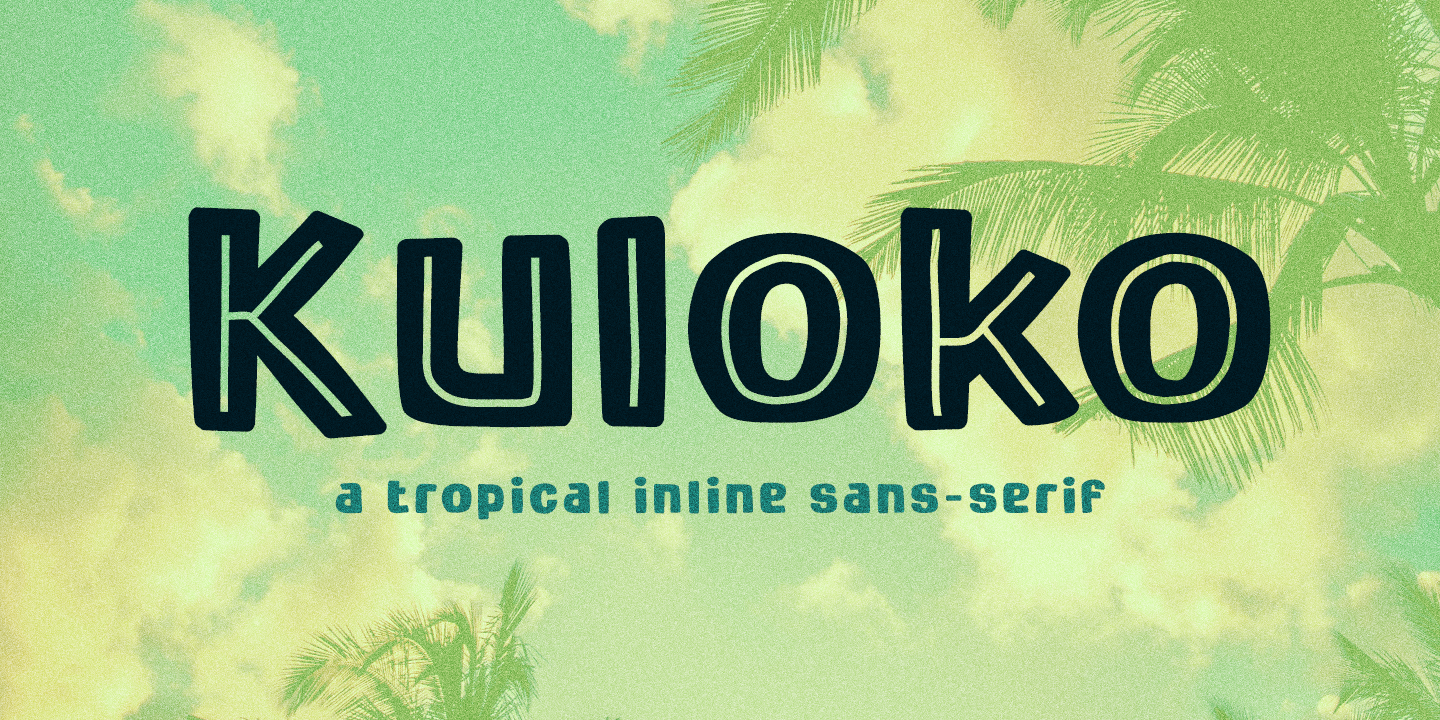
The Kuloko Font is a versatile and striking typeface, perfect for a wide array of design applications. Imagine it gracing the covers of modern magazines, adding a touch of urban sophistication to apparel designs, or providing a bold and memorable statement on product packaging. Its distinct character makes it an excellent choice for branding, poster design, social media graphics, and even eye-catching website headlines. Whether you're aiming for a strong, contemporary feel or a touch of playful edginess, Kuloko Font delivers.
What makes Kuloko Font so exciting is its unique blend of readability and personality. It manages to be both highly legible at various sizes and remarkably expressive, making your message pop. The craftsmanship behind its design ensures smooth curves and sharp lines, contributing to a professional and polished appearance in any context. This font isn't just about conveying text; it's about making a statement and leaving a lasting impression. Its modern aesthetic ensures your designs will stand out from the crowd, capturing attention and conveying a sense of up-to-date style. The distinctiveness of Kuloko Font allows designers to infuse their projects with a fresh, contemporary vibe that resonates with today's visual trends.
The Kuloko Font family offers a comprehensive range of weights and styles, providing designers with immense flexibility. Typically, you might find this font accompanied by variations such as Light, Regular, Medium, Semibold, Bold, and perhaps even Italic or Outline versions. These diverse options allow for harmonious typography within a single project, enabling you to create visual hierarchies and emphasize different elements effectively. The availability of multiple weights ensures that Kuloko Font can seamlessly adapt from delicate accents to powerful headings, maintaining consistency and aesthetic appeal across your entire design. For those seeking the impactful Kuloko Font Free Download, the robust family ensures that every design need is met with precision and style.